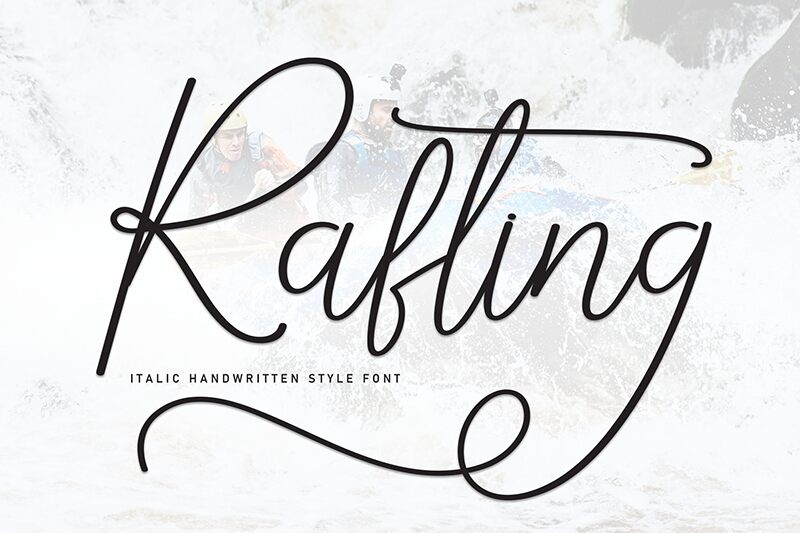
Rafting font designed by Scratchones lives up to its name by making you think of a gentle stroll in nature and relaxation. This free handwritten font is a cursive and lively digitized script. Classic and smooth yet modern and sophisticated, expect an elegant and rhythmical appearance of all characters. Included are lowercase letters as well as unique uppercase characters which can be used alone to create exciting titles.
Such a smooth and friendly font can be used in a variety of ways including seamlessly adding it to your branding, product packaging, posters, headlines, or social media posts. Also recommended are magazines, greeting cards, fashion tracking, invitations, romantic books, beauty products, advertising, and much more.
The latest style letters are perfect for wall displays, wedding invitations, social media logos, advertisements, product packaging, product designs, labels, photography, watermarks, invitations, stationery, and any project that requires tasteful handwriting.